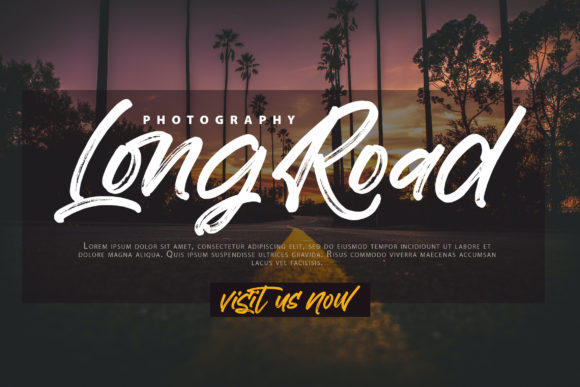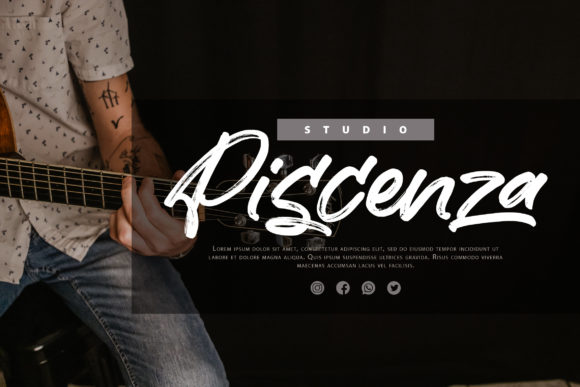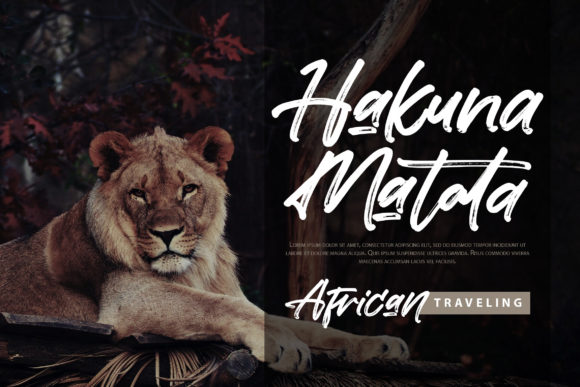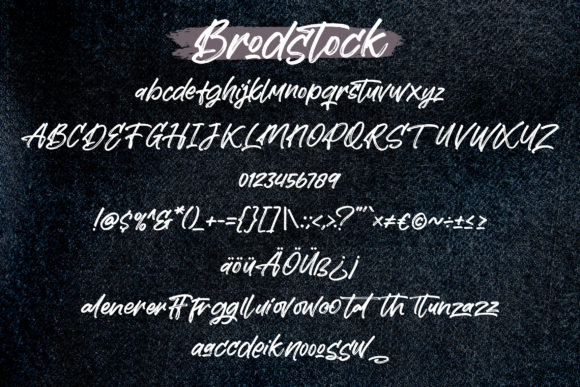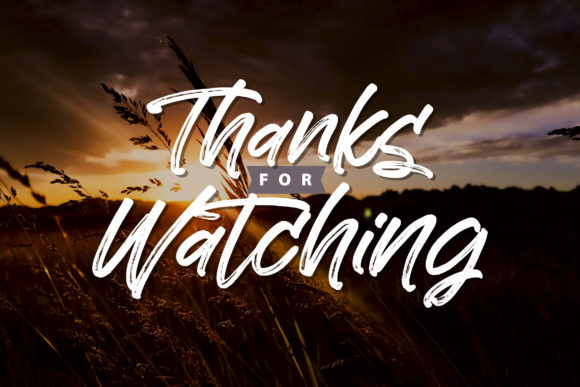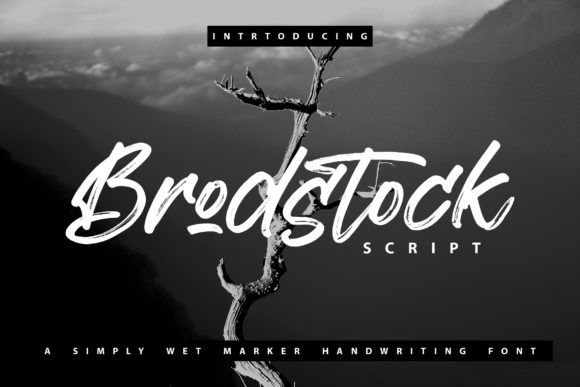
Brodstock Font: Elevate Your Designs with a Painted Handwritten Touch
In the world of digital design, fonts play a crucial role in conveying the tone and aesthetic of a project. For designers and crafters looking to add a personal, artistic touch to their work, the Brodstock font is an excellent choice. This paint brushed handwritten font is not only visually appealing but also highly versatile, making it perfect for a wide range of applications.
What is Brodstock Font?
Brodstock is a unique, paint brushed handwritten font designed to bring a sense of creativity and originality to your projects. Its distinctive, hand-painted look is reminiscent of traditional brush scripts, but with a modern twist that sets it apart from more conventional fonts. Whether you’re working on a branding project, crafting a handmade product label, or designing digital content, Brodstock can add that special something that makes your work stand out.
One of the key features that sets Brodstock apart is its PUA (Private Use Area) encoding. This means that the font includes a wide range of glyphs and swashes that are easily accessible. PUA encoding allows designers to tap into these additional characters without the need for complex software or technical expertise. With Brodstock, you can effortlessly add decorative touches, alternate letters, and swashes to your text, enhancing the visual appeal of your designs.
Advantages of Using Brodstock Font
- Unique Aesthetic: Brodstock’s paint brushed look adds a distinctive, artistic flair to any project.
- Versatility: Suitable for a variety of applications, from digital designs to print materials.
- Easy to Use: PUA encoding makes it simple to access and use the font’s extensive range of glyphs and swashes.
- Time-Saving: The comprehensive nature of the font means you have everything you need in one package.
Applications of Brodstock Font
The versatility of Brodstock makes it suitable for numerous design projects. Here are a few ideas to get you started:
- Branding and Logos: Use Brodstock to create a memorable logo or brand identity that stands out.
- Stationery and Invitations: Add a personal touch to your cards, invitations, and letters.
- Product Packaging: Elevate your product labels and packaging with a unique, hand-painted look.
- Digital Content: Incorporate Brodstock into your blog posts, social media graphics, and website designs for a creative edge.
Tips for Using Brodstock Effectively
To get the most out of Brodstock, consider the following tips:
- Experiment with Swashes: Don’t be afraid to try out different swashes and glyphs to find the perfect combination for your project.
- Mix and Match: Combine Brodstock with other fonts for a layered, dynamic look.
- Adjust Size and Color: Play with the font size and color to ensure it complements your overall design.
Brodstock font offers a unique blend of creativity and functionality, making it an excellent addition to any designer’s toolkit. Its paint brushed handwritten style, coupled with PUA encoding for easy access to glyphs and swashes, provides endless possibilities for enhancing your projects. Whether you’re a professional designer or a crafter looking to add a personal touch to your work, Brodstock is sure to inspire and elevate your designs.